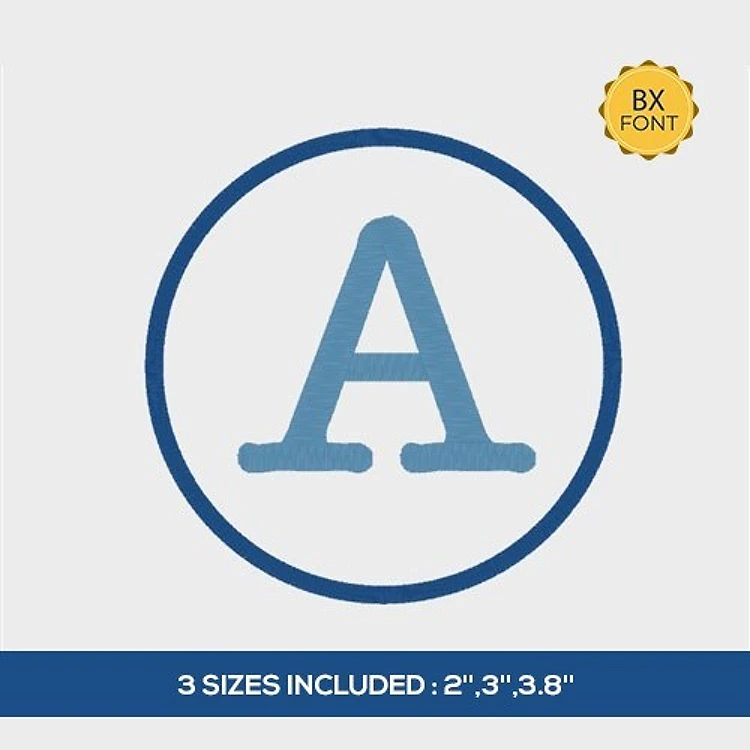
Single letter typewriter monogram Embrilliance Embroidery Font - Simple Monogram Style - 3 Sizes Included: 2", 3", 3.8" - BX font by Artsy Knots and other embroidery fonts available at EmbroideryDesigns.com.
Artsy Knots is happy to present Single letter typewriter monogram Embrilliance Embroidery Font - Simple Monogram Style - 3 Sizes Included: 2", 3", 3.8" - BX font machine embroidery font which has Modern monogram embroidery font showcasing a bold letter 'A' in light blue with a dark blue outline. Ideal for clean designs on towels or bags. Available in Embrilliance format. included. If you would like to view more embroidery fonts and alphabets please search our embroidery fonts page.
Single letter typewriter monogram Embrilliance Embroidery Font - Simple Monogram Style - 3 Sizes Included: 2", 3", 3.8" - BX font